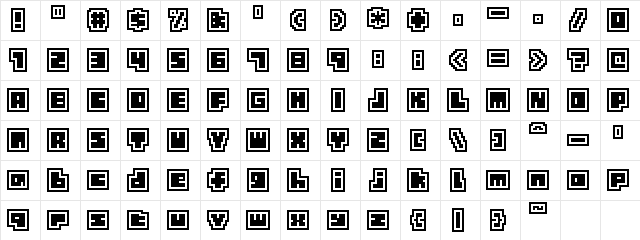
Tiny Box CollageBitA12 Regular Free Font
Tiny Box CollageBitA12 Regular
Design Context for Tiny Box CollageBitA12
Tiny Box CollageBitA12 is a composed and adaptable typeface that performs quietly and consistently across a wide range of design contexts.
Pro Tip: Use Tiny Box CollageBitA12 in both headline and body roles to test its range before committing to a single application.